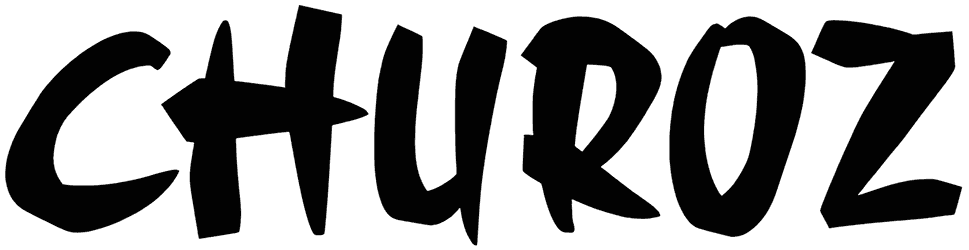
Churoz Font
Churoz font has that playful food-cart energy that makes a headline feel warm, goofy, and instantly snackable. Its rounded display shapes carry the same fun you’d expect from churros, chocolate dips, and busy dessert counters, so the words start feeling tasty before the design even adds a single illustration. You don’t use it for quiet elegance; you use it when the layout needs sugar, movement, and a big smile.
Use this brush font for dessert menus, snack packaging, bakery logos, kids’ party flyers, café stickers, food truck branding, or sweet social posts. Add cinnamon browns, creamy highlights, and chunky shadows for extra flavor.